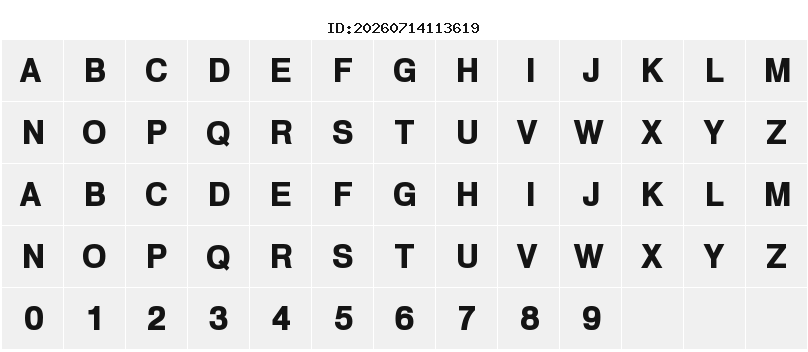
HeldustryFTVBasic Black Preview
• Font Name: HeldustryFTVBasic Black
• Full Font Name: HeldustryFTVBasic Black
About HeldustryFTVBasic Black.ttf
HeldustryFTVBasic Black.ttf is a modern, elegant sans-serif font designed for ultimate readability and visual harmony. Perfect for branding, headlines, web design, and print materials.